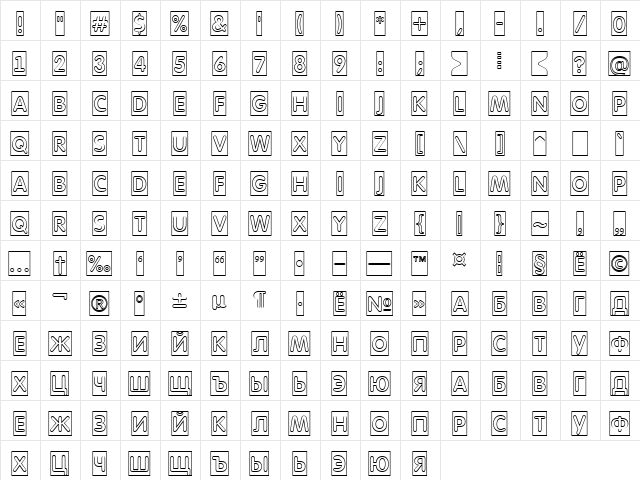
a_FuturaRoundTtlCmOtl Demi
Design Context for a_FuturaRoundTtlCmOtl Typeface
a_FuturaRoundTtlCmOtl has a distinctly futuristic character, with geometric precision and clean angles that feel at home in technology, gaming, and sci-fi contexts.
Pro Tip: Use a_FuturaRoundTtlCmOtl in combination with a neutral sans for body text. Let it define the brand voice in headlines while keeping reading comfortable elsewhere.